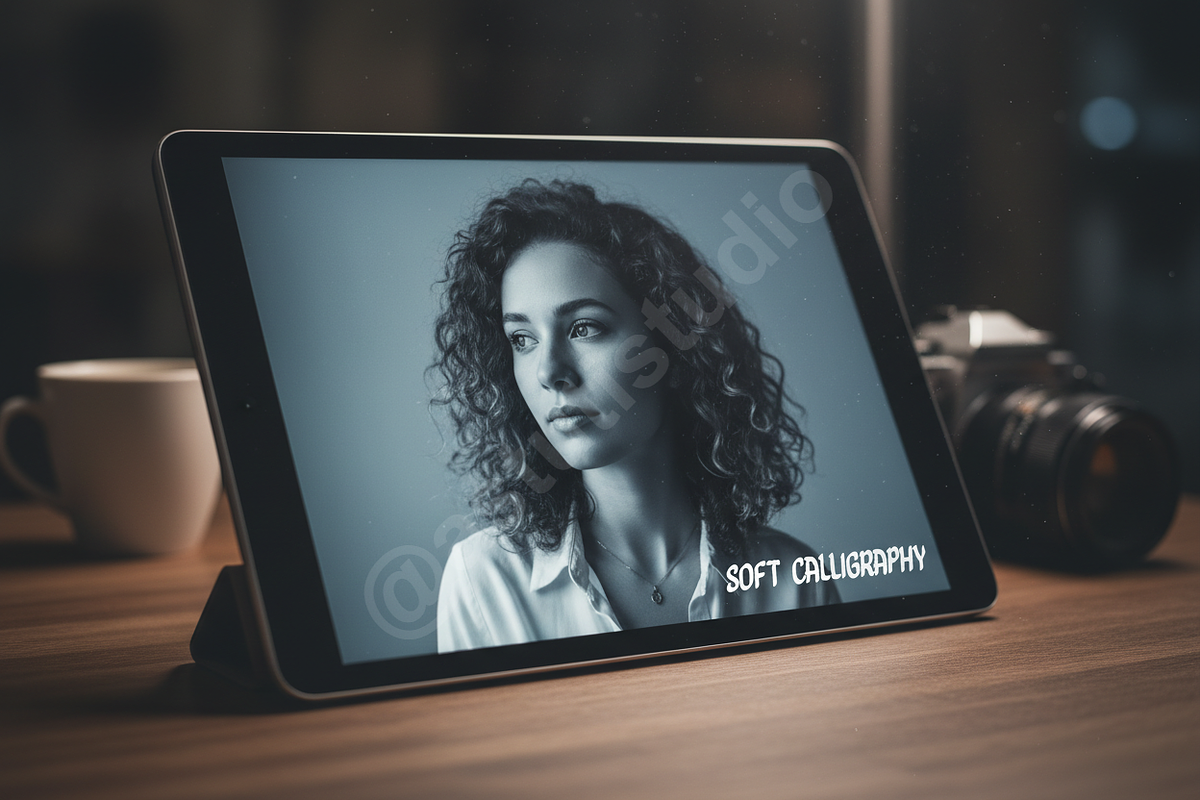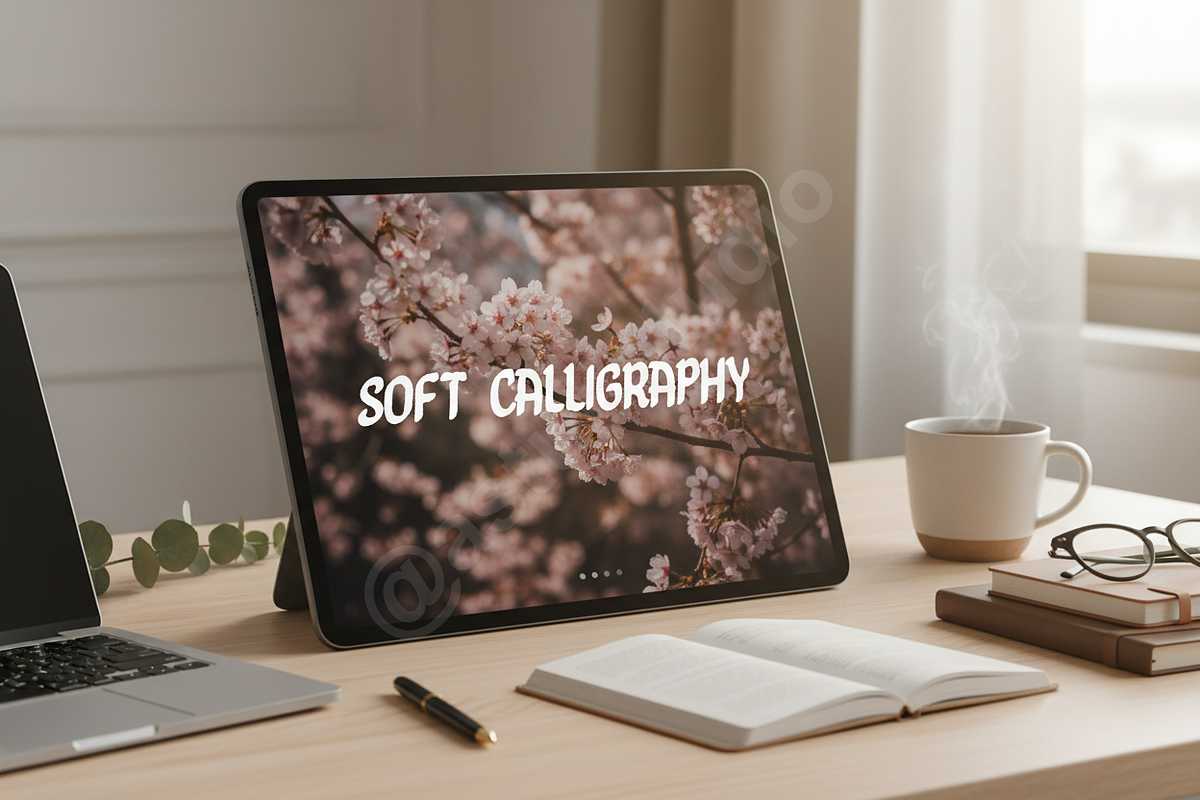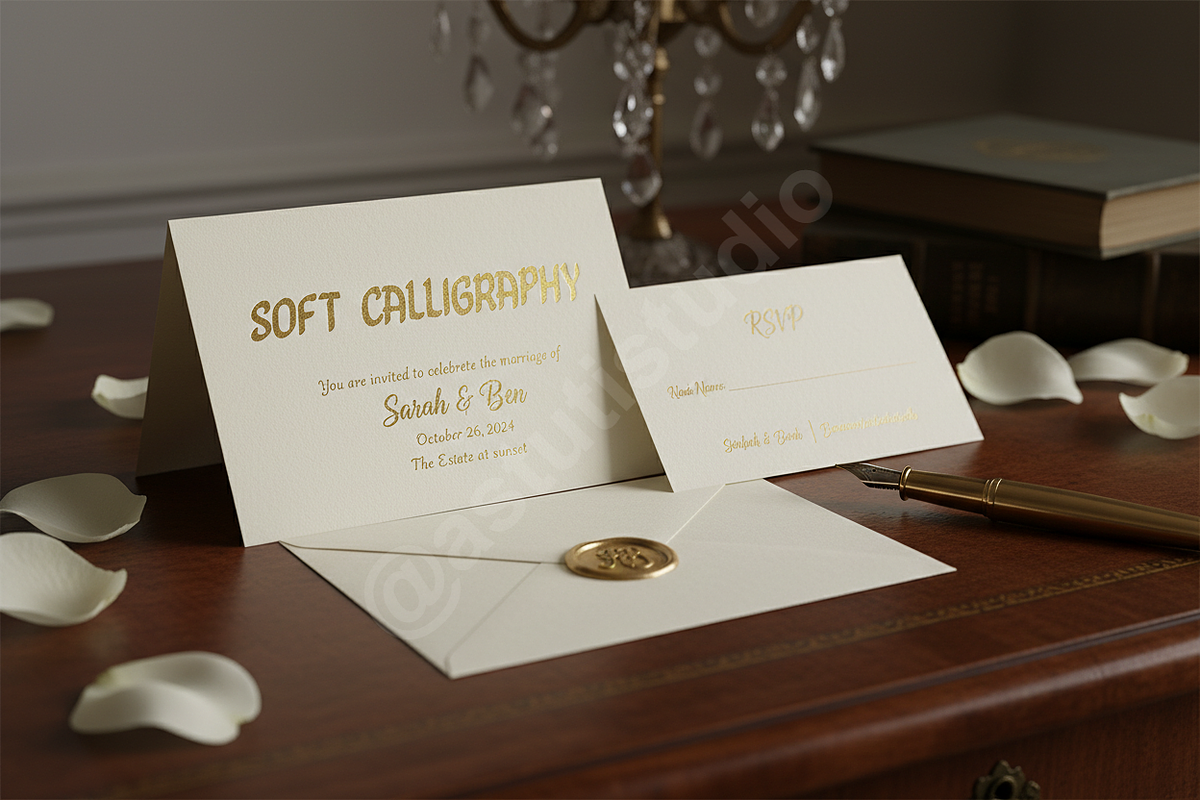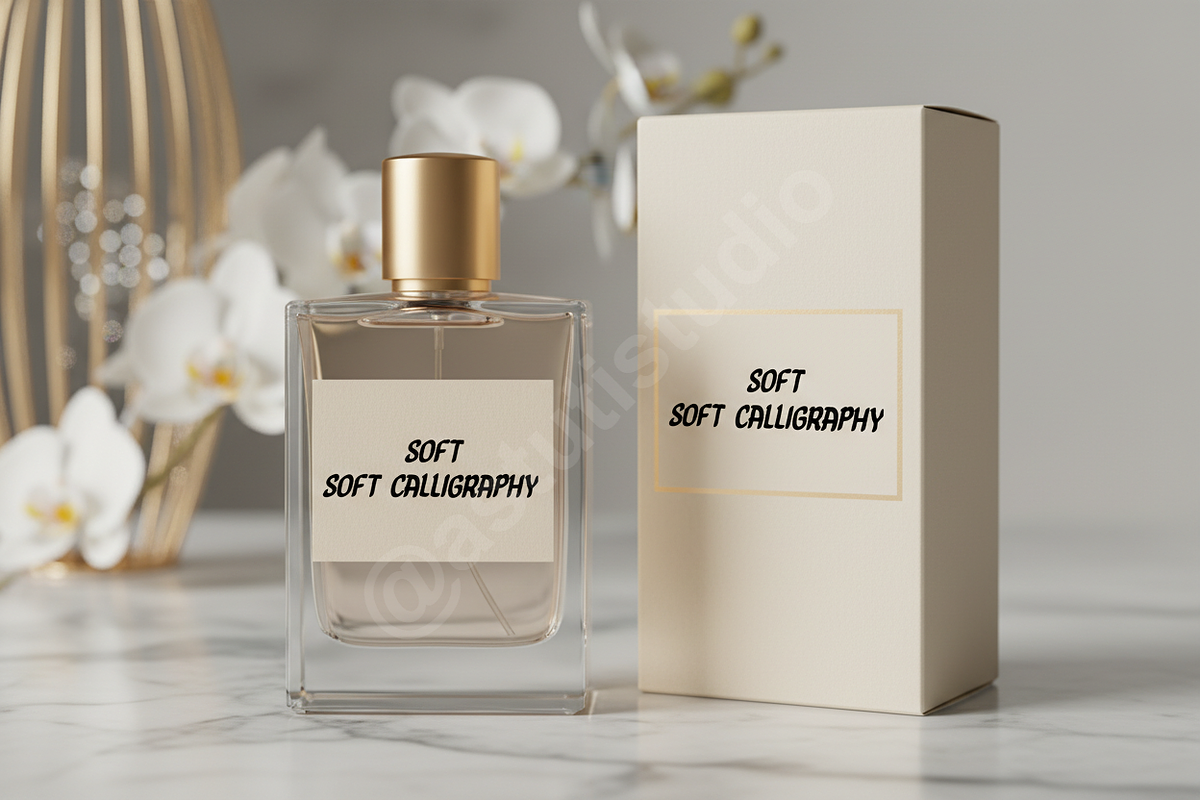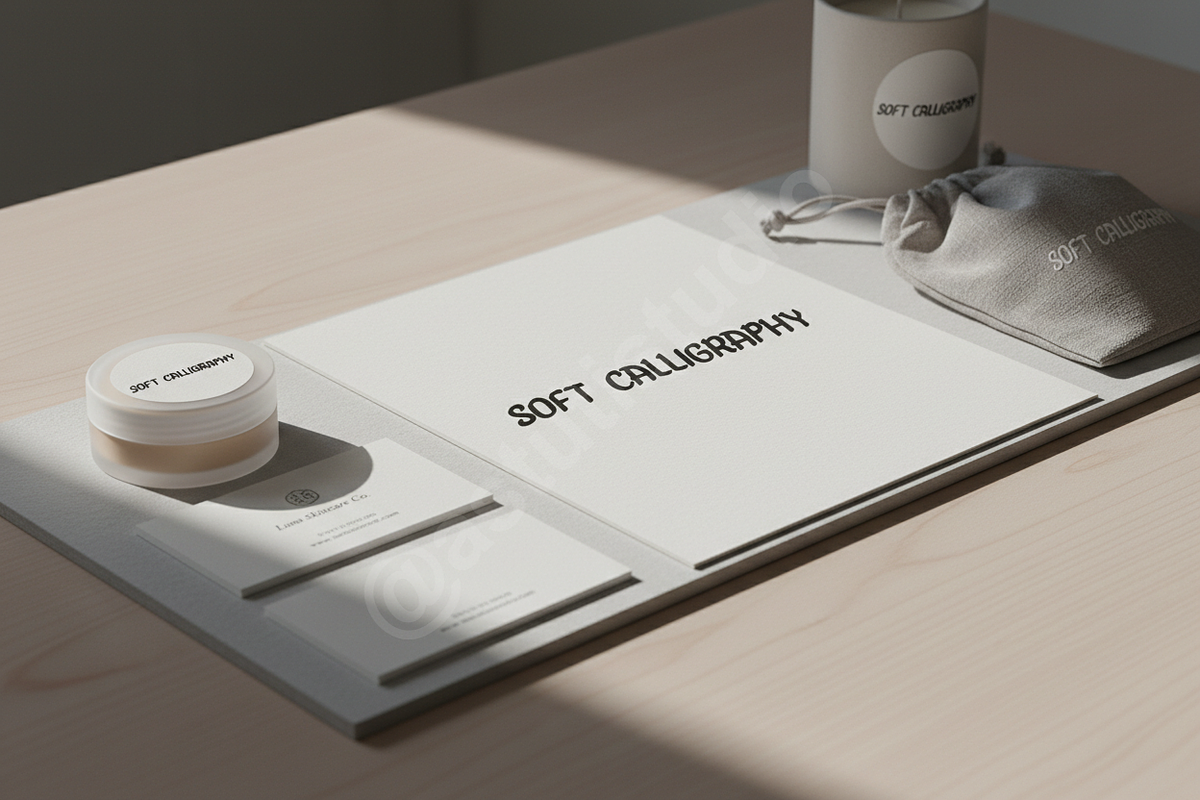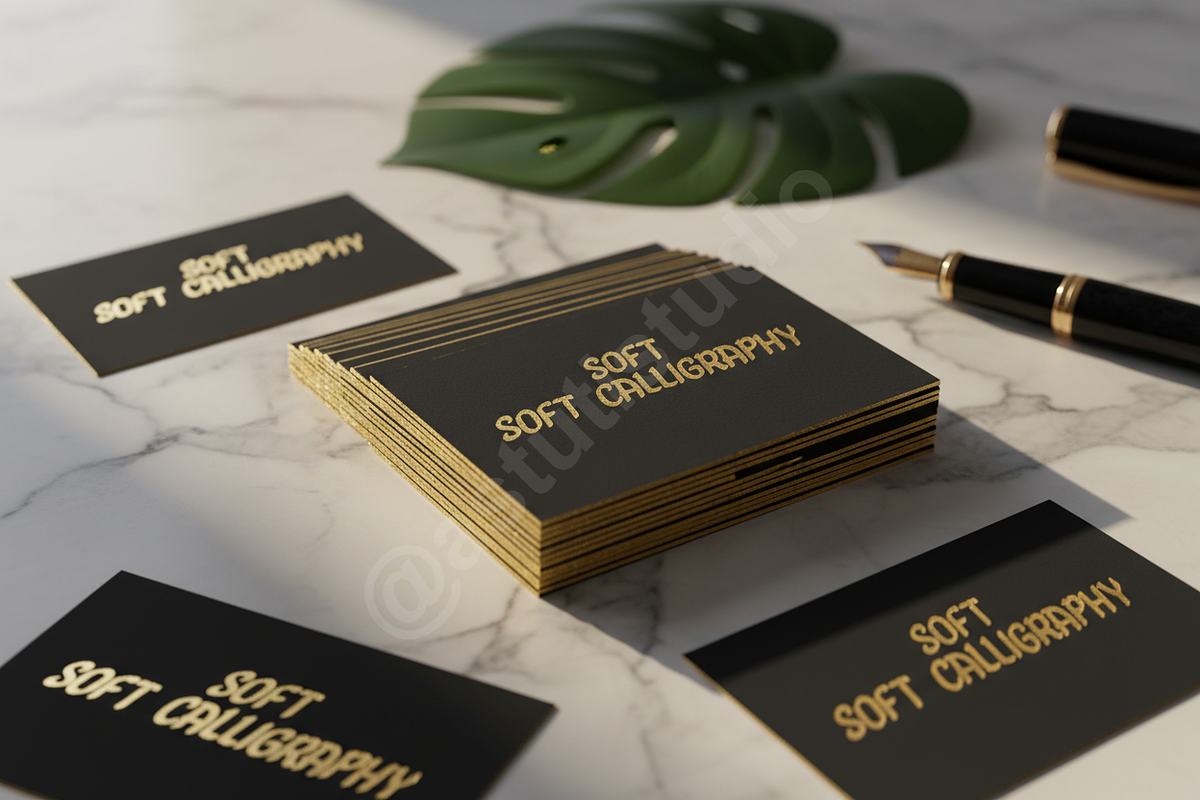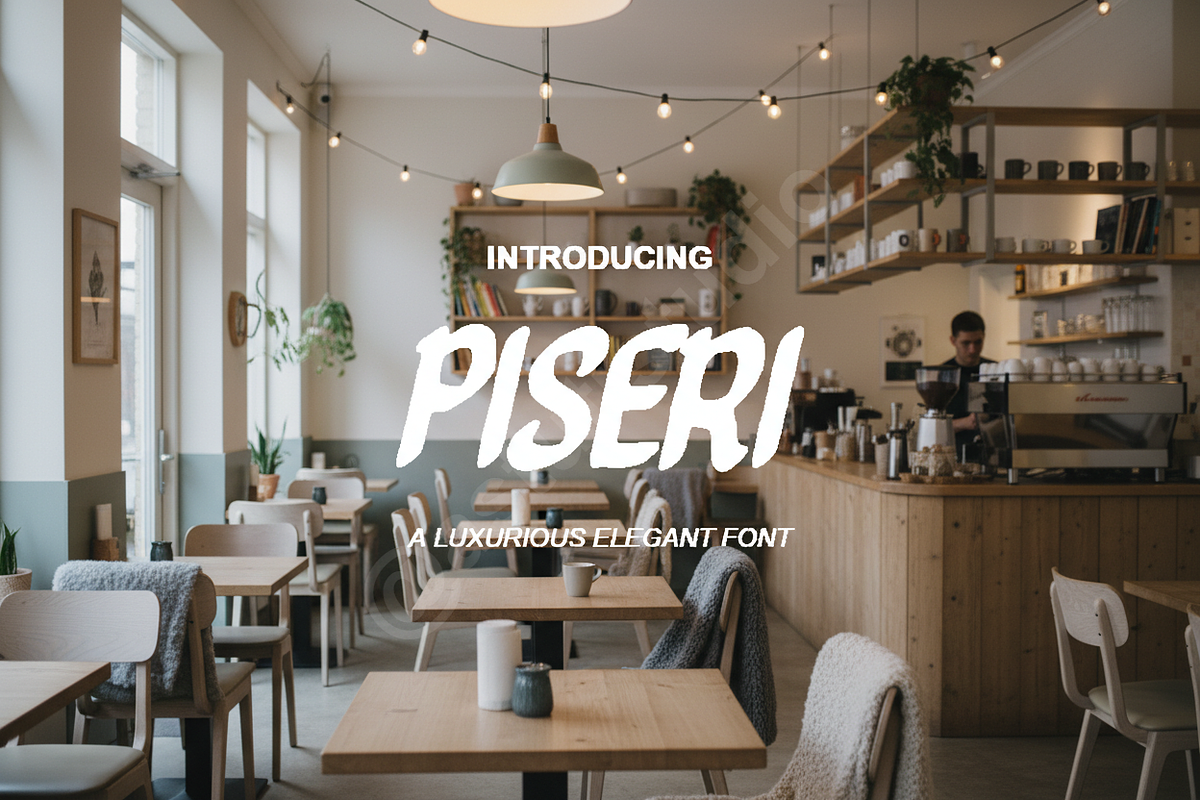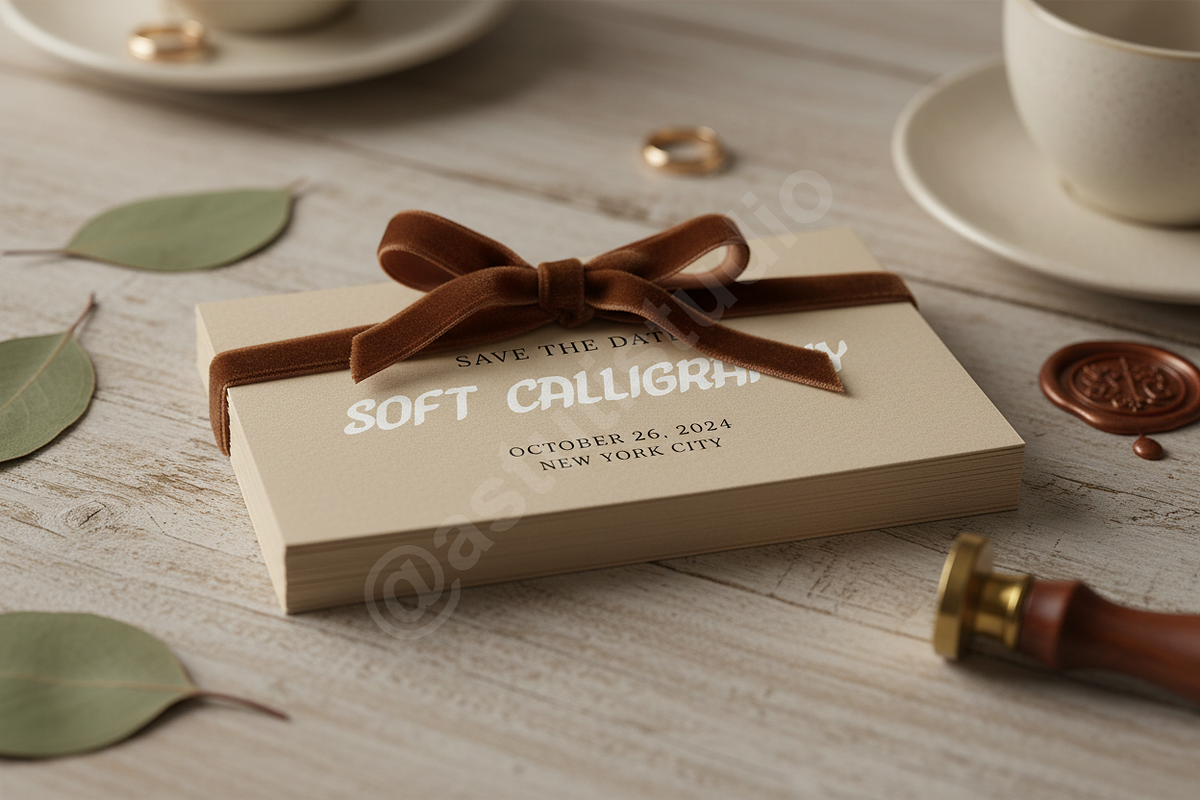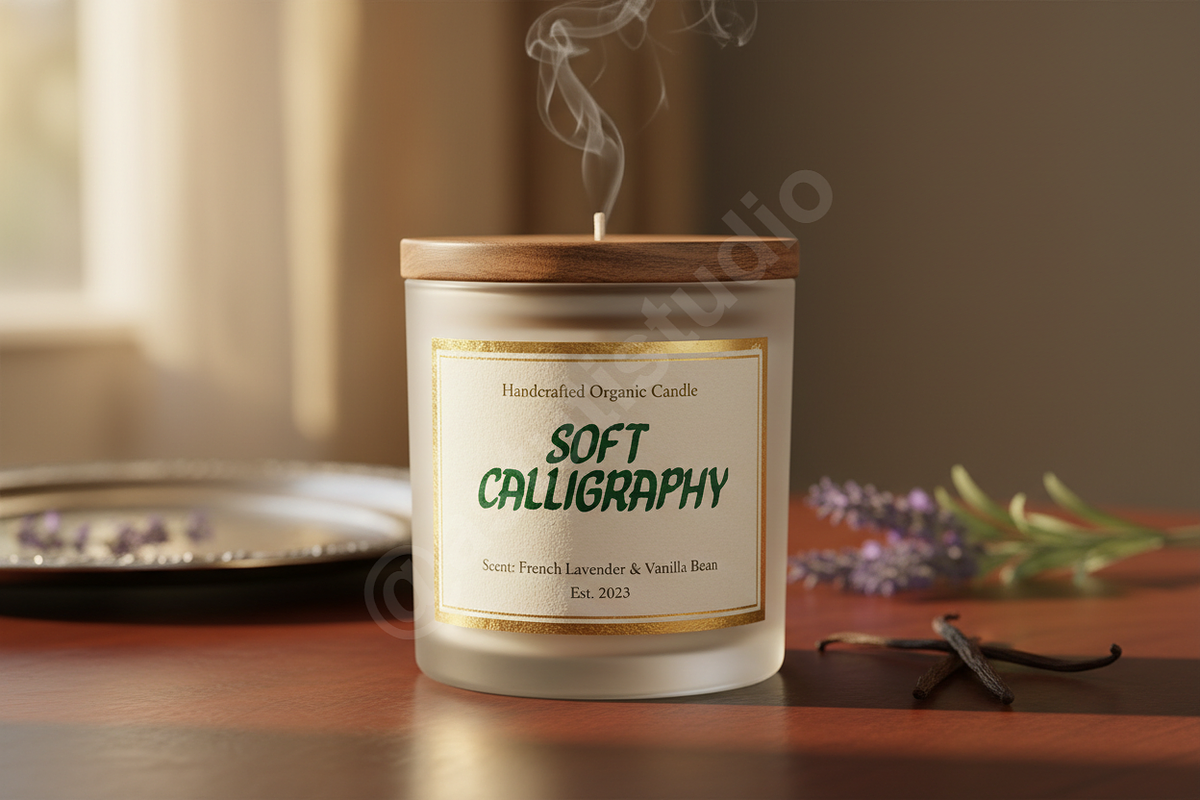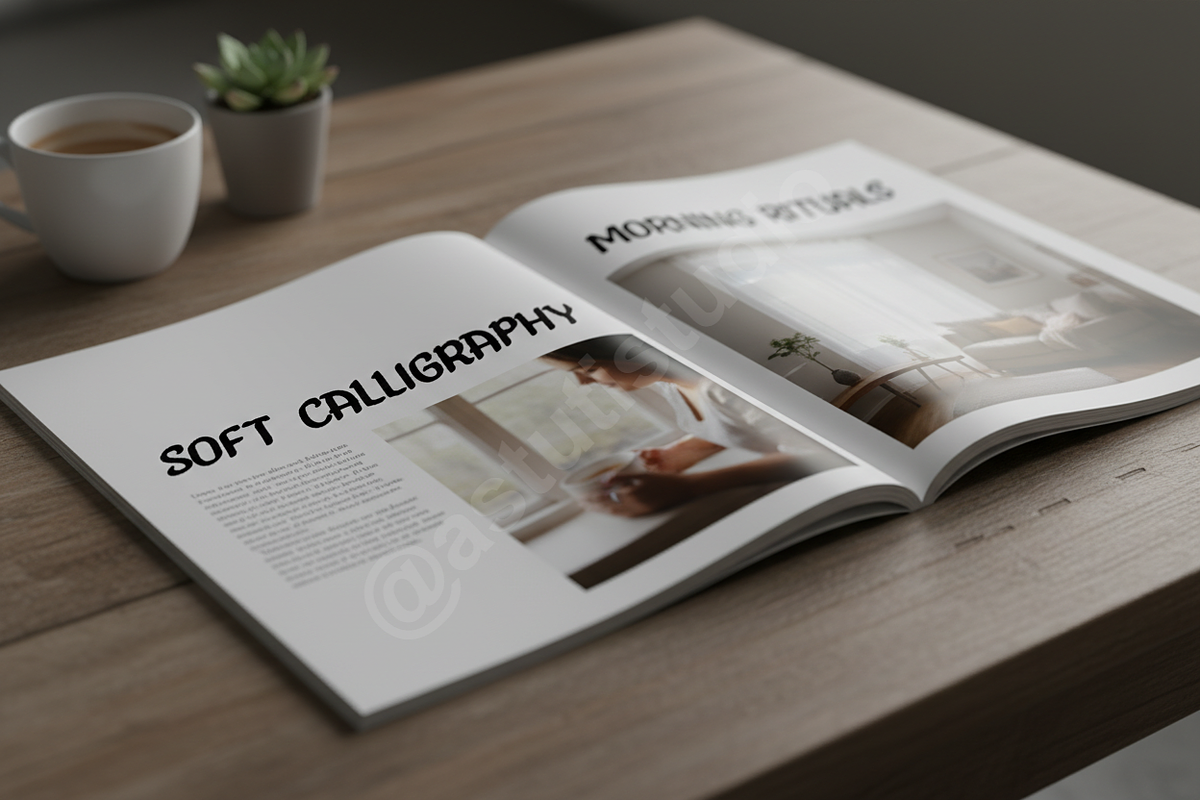
Piseri | Sophisticated Modern Serif
INTRODUCTION Piseri is a refined serif typeface meticulously crafted for high-end creative projects. Drawing inspiration from timeless editorial aesthetics, Piseri balances delicate hairlines with bold, confident strokes, making it the definitive choice for brands that prioritize elegance and clarity. Whether you are designing a luxury brand identity, a high-fashion magazine layout, or sophisticated social media content, Piseri provides a polished, professional finish.
- Refined high-contrast letterforms
- Extensive set of unique ligatures and stylistic alternates
- Precision kerning for professional-grade typesetting
- Specialized ligature glyphs for a custom-lettered look